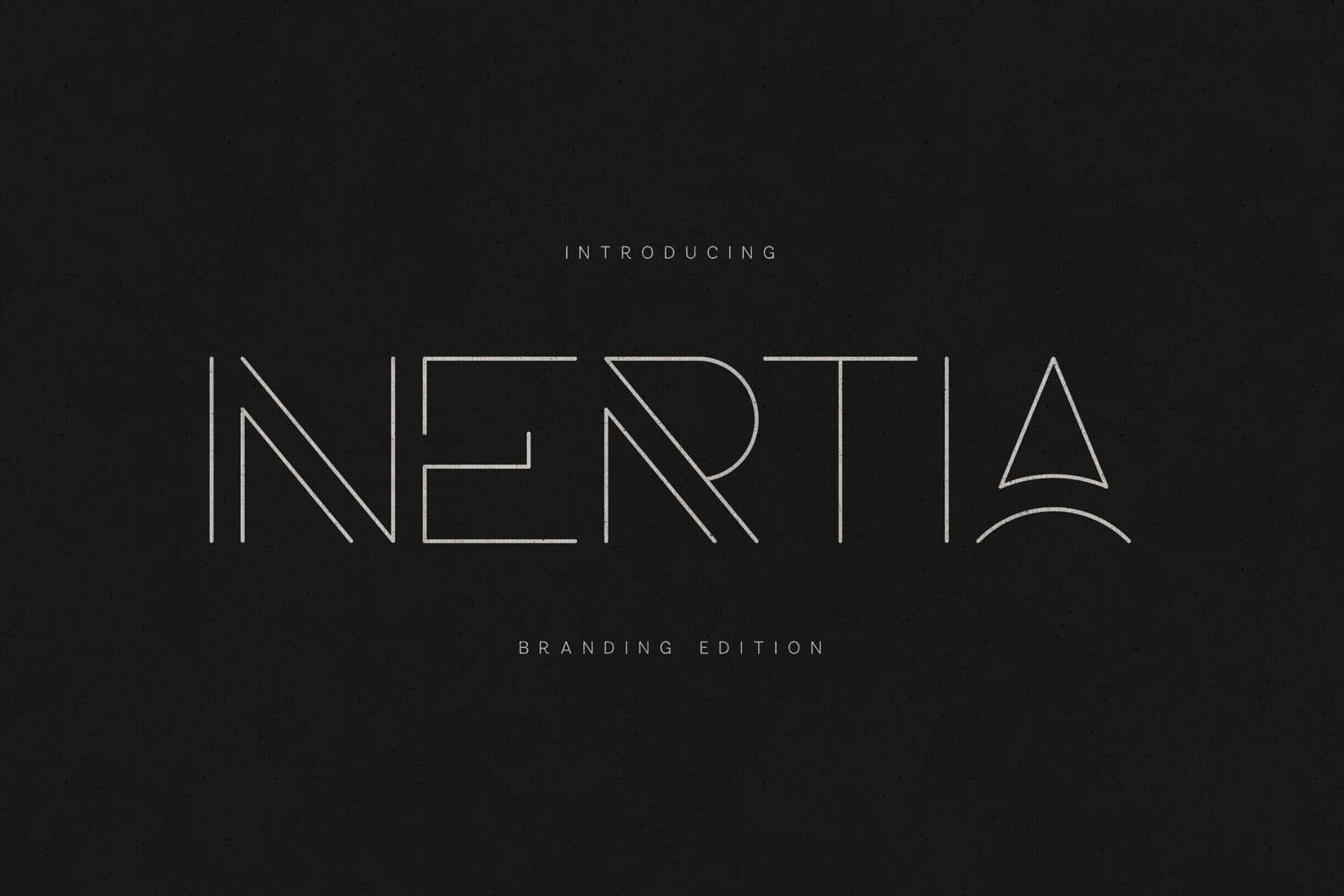
Inertia Branding Edition
INERTIA is a refined ultra-thin display typeface built for modern luxury identities and conceptual branding systems.
Defined by precision line weight, architectural geometry, and distinctive letter construction, it delivers an elevated aesthetic that feels both futuristic and timeless.
This is not a body font.
This is a statement font.
Minimal in weight.
Maximum in presence.
⸻
Design Philosophy
INERTIA explores tension between structure and space.
Every glyph is constructed with deliberate negative space and controlled stroke rhythm. Select characters feature refined geometric interventions — such as the signature triangular “A” and diagonal internal cuts — creating a subtle but memorable identity system.
The result is a typeface that feels:
• Architectural
• Editorial
• Experimental
• High-end
• Concept-driven
⸻
Ideal For
Luxury branding
Fashion houses
Perfume & cosmetics
Architecture studios
Jewelry brands
High-concept editorials
Minimal logos
Album covers
Gallery posters
Tech startups
⸻
What Makes INERTIA Unique
• Ultra-thin precision stroke
• Distinctive geometric A and custom cuts
• Balanced spacing for logo usage
• Elegant numeric set
• Clean punctuation & symbols
This typeface was designed specifically for brand marks, headlines, and identity systems that rely on space, contrast, and subtle sophistication.
⸻
Aesthetic Direction
Think:
Black marble backgrounds
Silver foil stamping
Embossed business cards
Luxury packaging
Modern museum signage
Runway typography
INERTIA doesn’t shout.
It whispers with confidence.